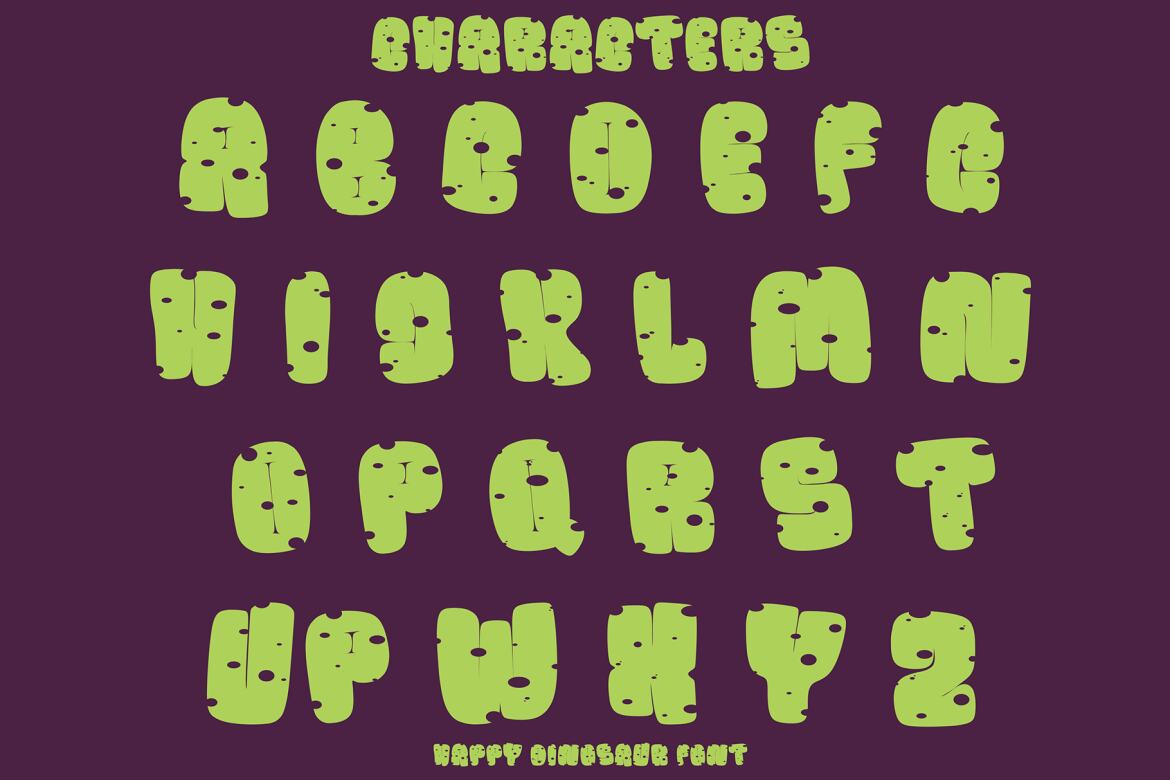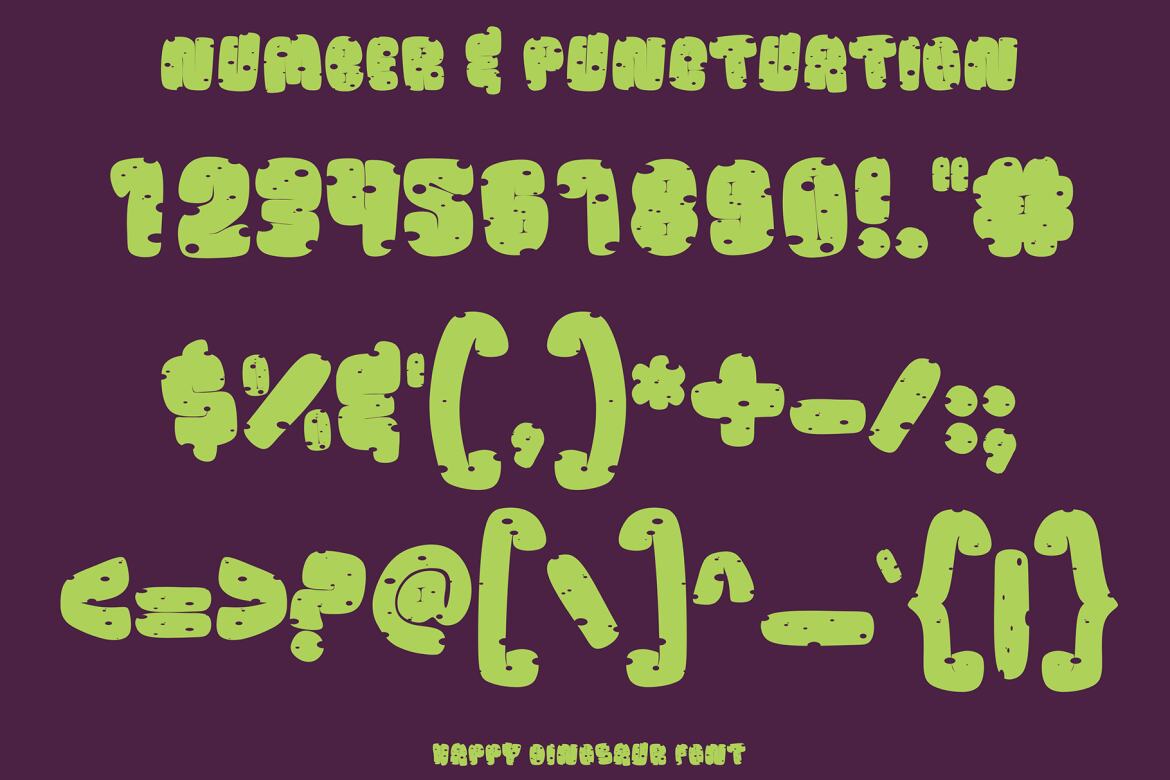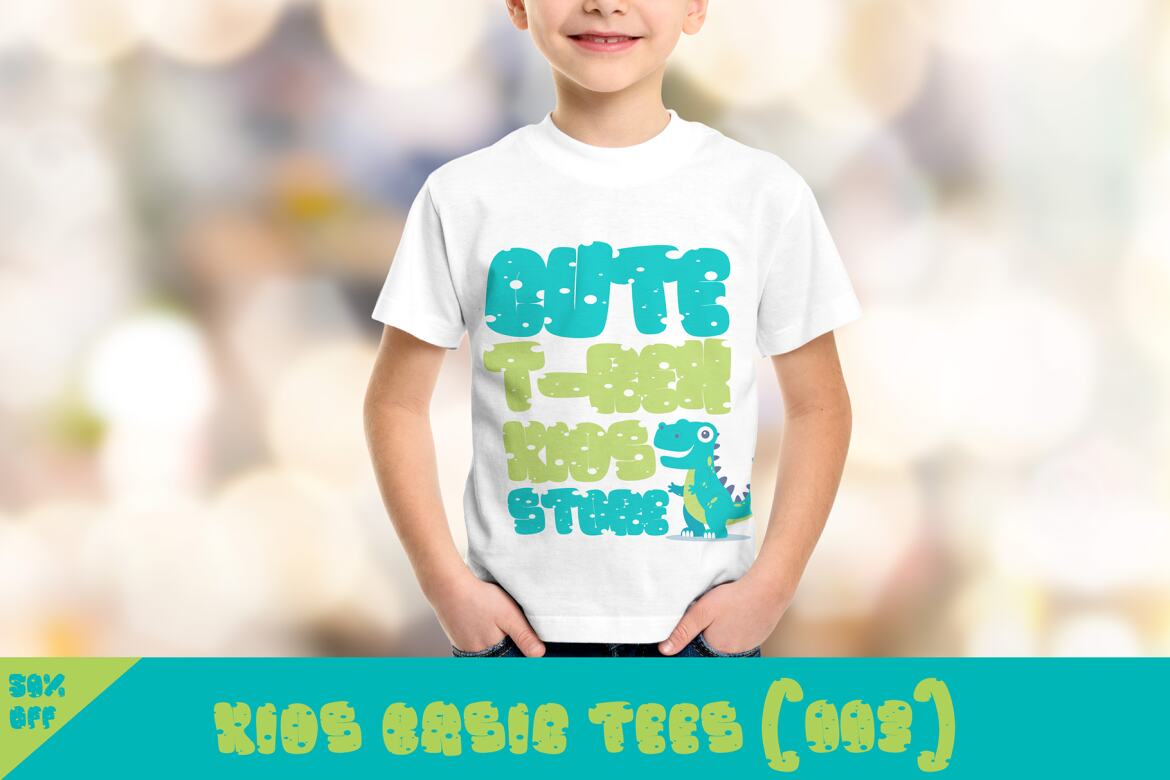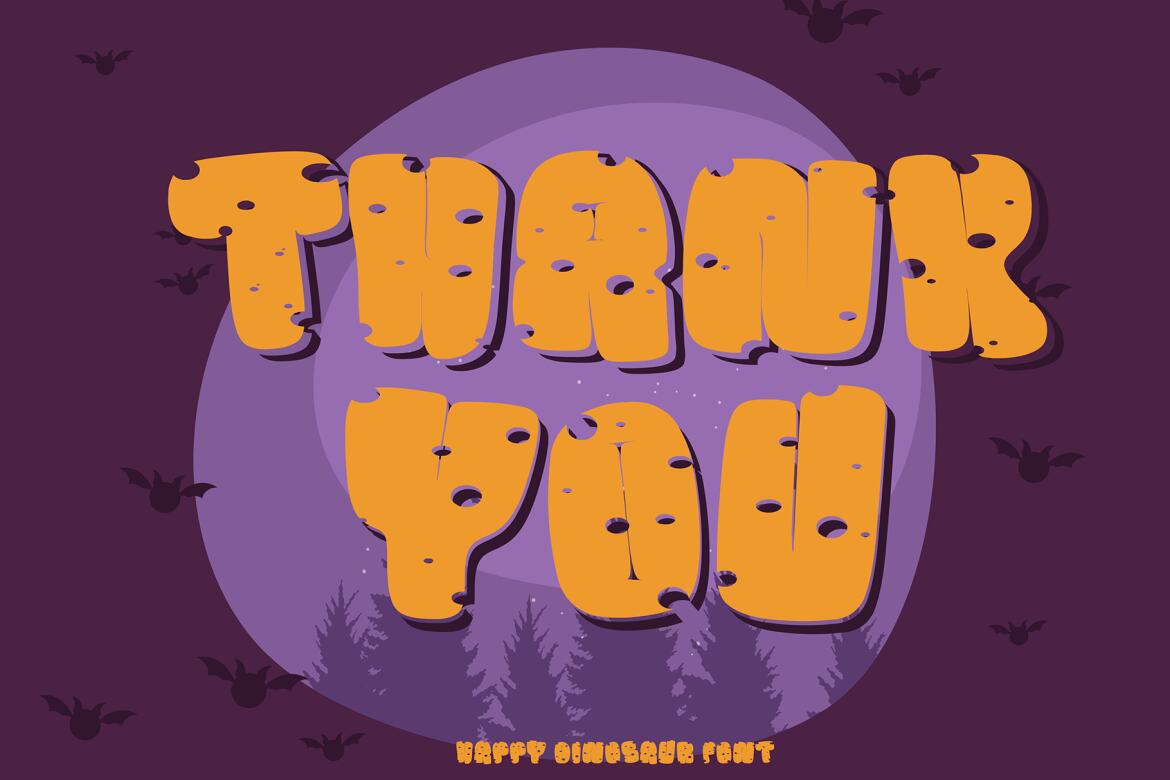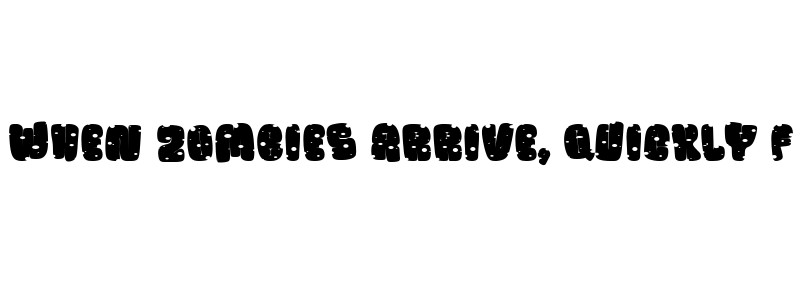
Happy Dinosaur - Free Font
Happy Dinosaur
Happy Dinosaur is a sweet and chunky lettered display font. Its friendly feel makes this font incredibly versatile, fitting a wide range of contexts. Add it to your creative ideas and notice how it makes them stand out!